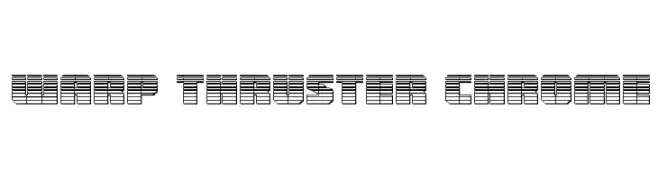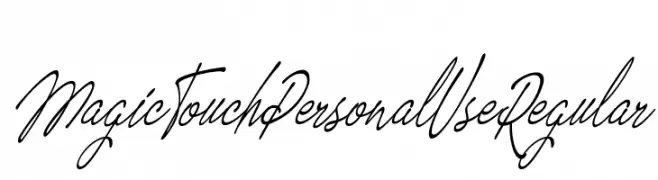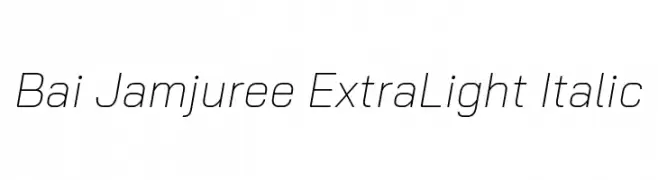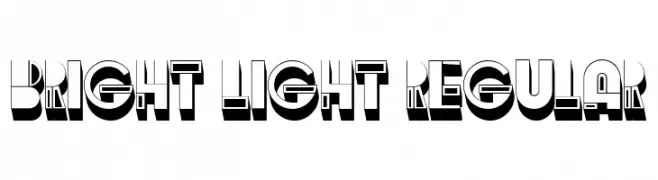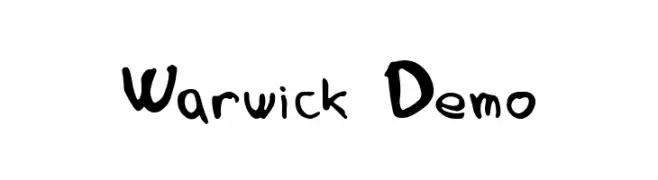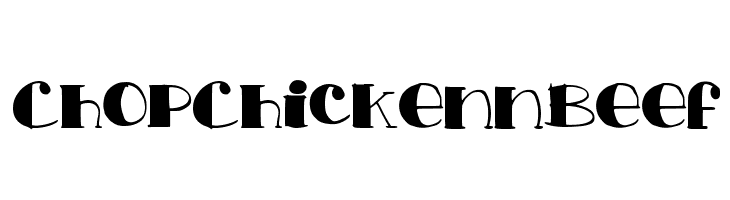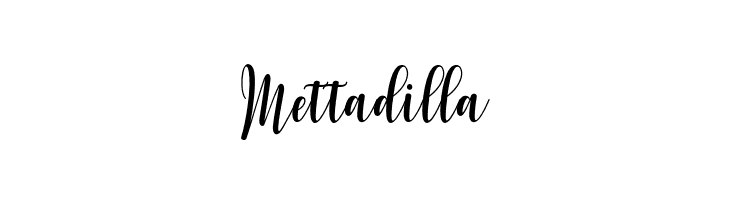
A futuristic, layered font with a bold, three-dimensional appearance.
An elegant, flowing script font with a calligraphic style.
A playful, expressive handwritten font with tall, narrow letterforms and dynamic contrast.
A bold, italic script font with fluid, interconnected strokes and high contrast.
A bold, italicized font with a distressed texture for a rugged, edgy look.
A bold, collegiate-style font with double-line outlines and strong geometric shapes.
A playful, rounded font with a hand-drawn, whimsical style.
A sleek, modern italic font with thin strokes and a dynamic appearance.
A bold, three-dimensional font with strong shadow effects and geometric structure.
A playful, handwritten font with irregular, organic shapes and a whimsical style.